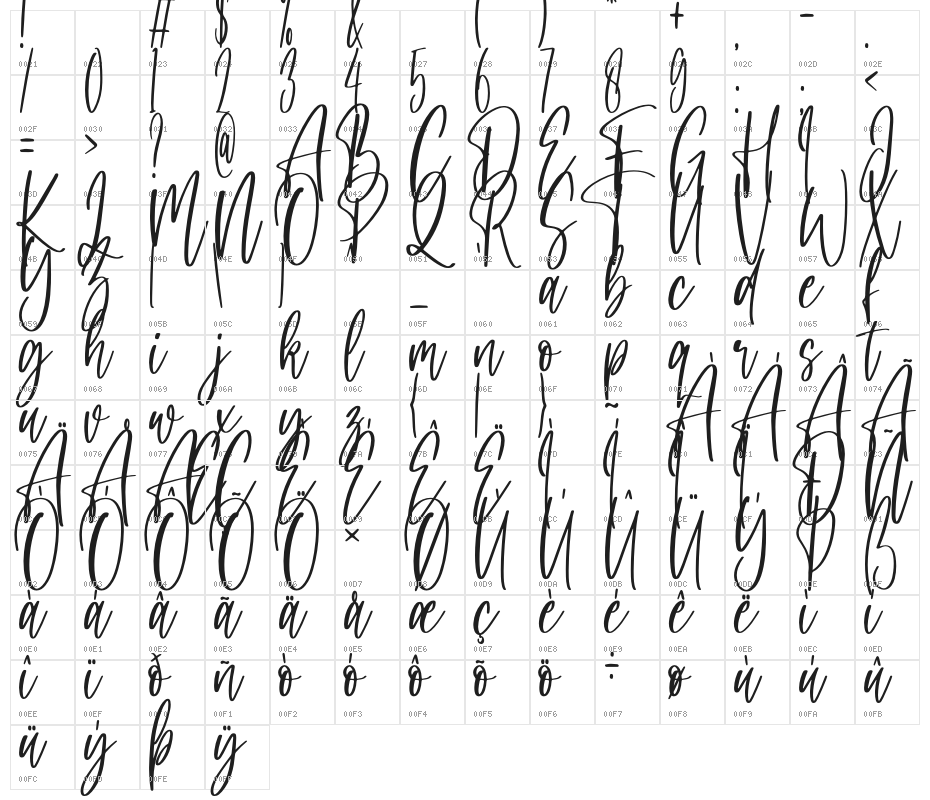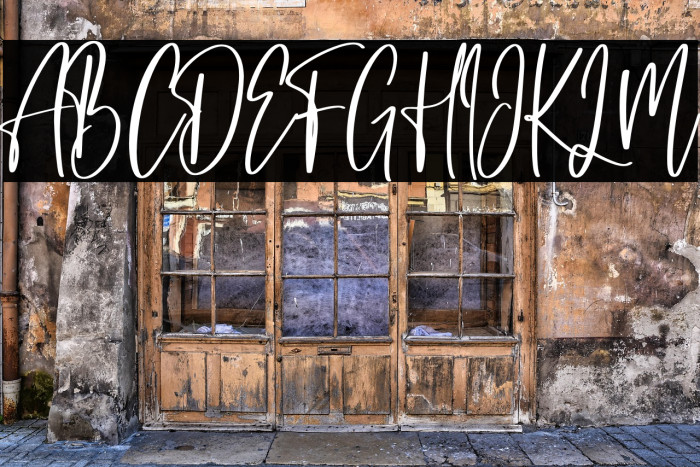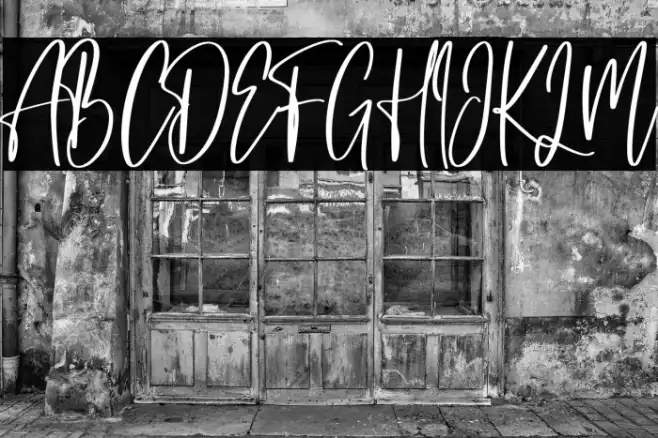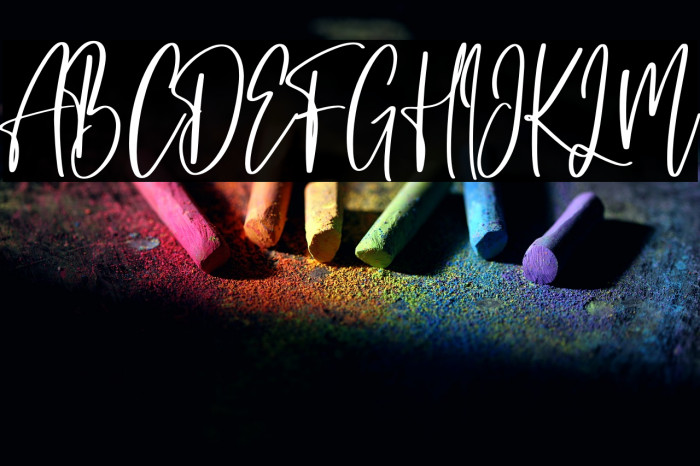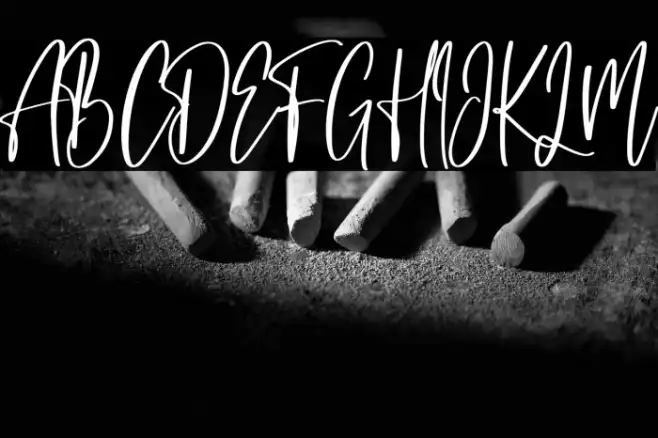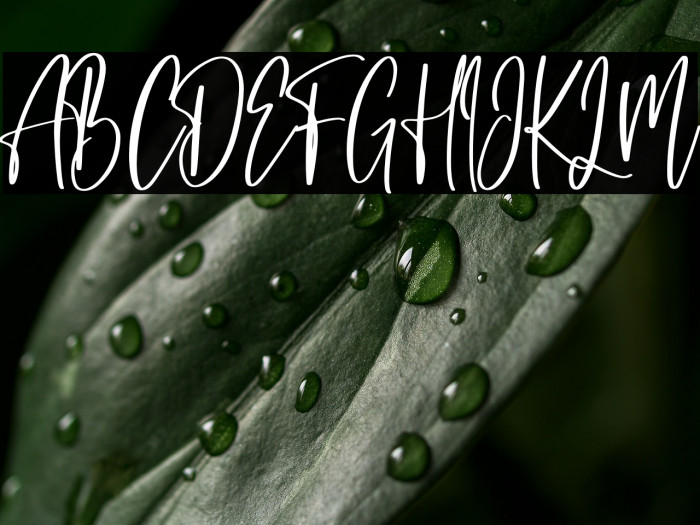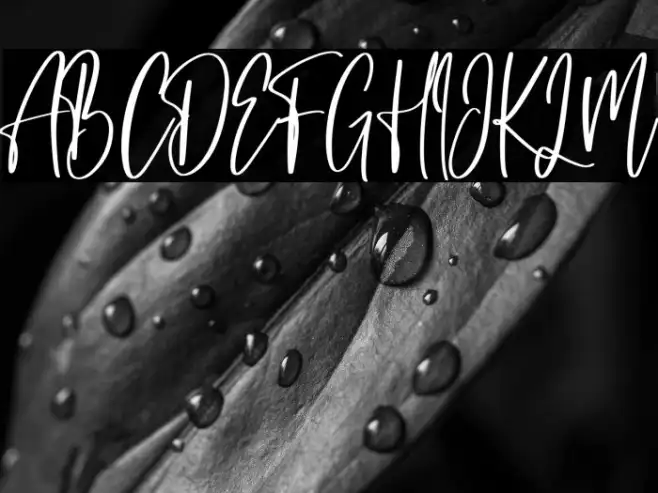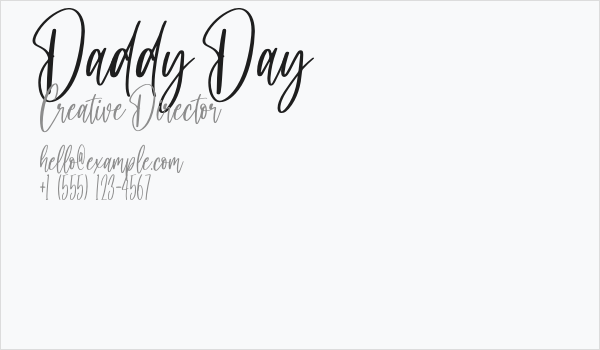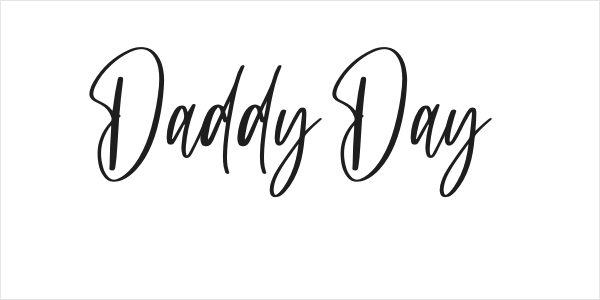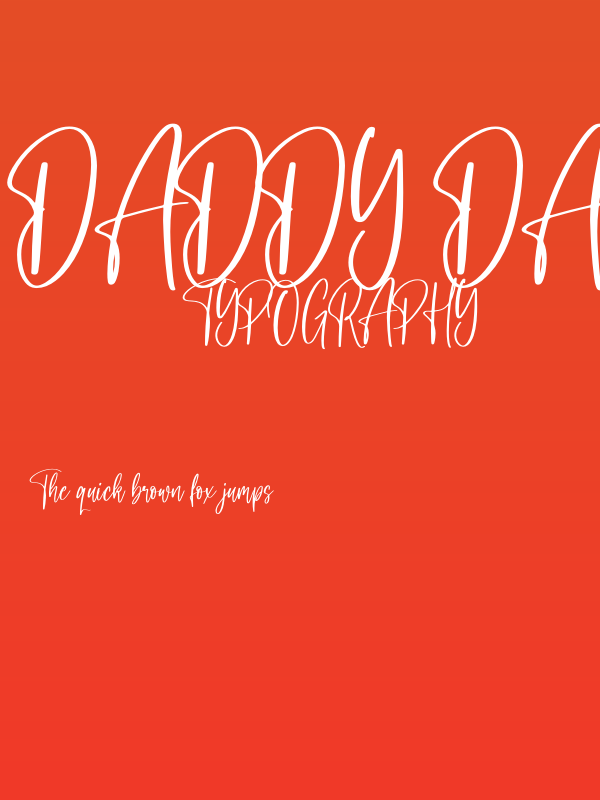
Daddy Day Font
This font exudes a lively and dynamic energy, characterized by its flowing, cursive script style. The letters are interconnected, creating a seamless and continuous appearance that mimics natural handwriting. The strokes are bold and expressive, with varying thickness that adds a sense of movement and rhythm. The uppercase letters maintain a consistent height, while the lowercase letters have a playful bounce, enhancing the font's informal and approachable feel. The numerals and special characters follow the same fluid style, ensuring a cohesive look across all elements. This font is perfect for projects that require a personal touch, such as invitations, greeting cards, or branding materials that aim to convey warmth and creativity.